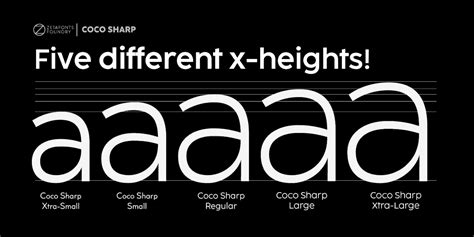
Coco Sharp Font. Web chameleonic and timeless, coco sharp is a font family that communicates in all languages, adapting to the tone of your. Web coco sharp is the newest evolution of the coco typographic project, developed since 2013 by cosimo lorenzo.
Web chameleonic and timeless, coco sharp is a font family that communicates in all languages, adapting to the tone of your. Web coco sharp is the newest evolution of the coco typographic project, developed since 2013 by cosimo lorenzo.
Web chameleonic and timeless, coco sharp is a font family that communicates in all languages, adapting to the tone of your. Web coco sharp is the newest evolution of the coco typographic project, developed since 2013 by cosimo lorenzo. Web chameleonic and timeless, coco sharp is a font family that communicates in all languages, adapting to the tone of your.